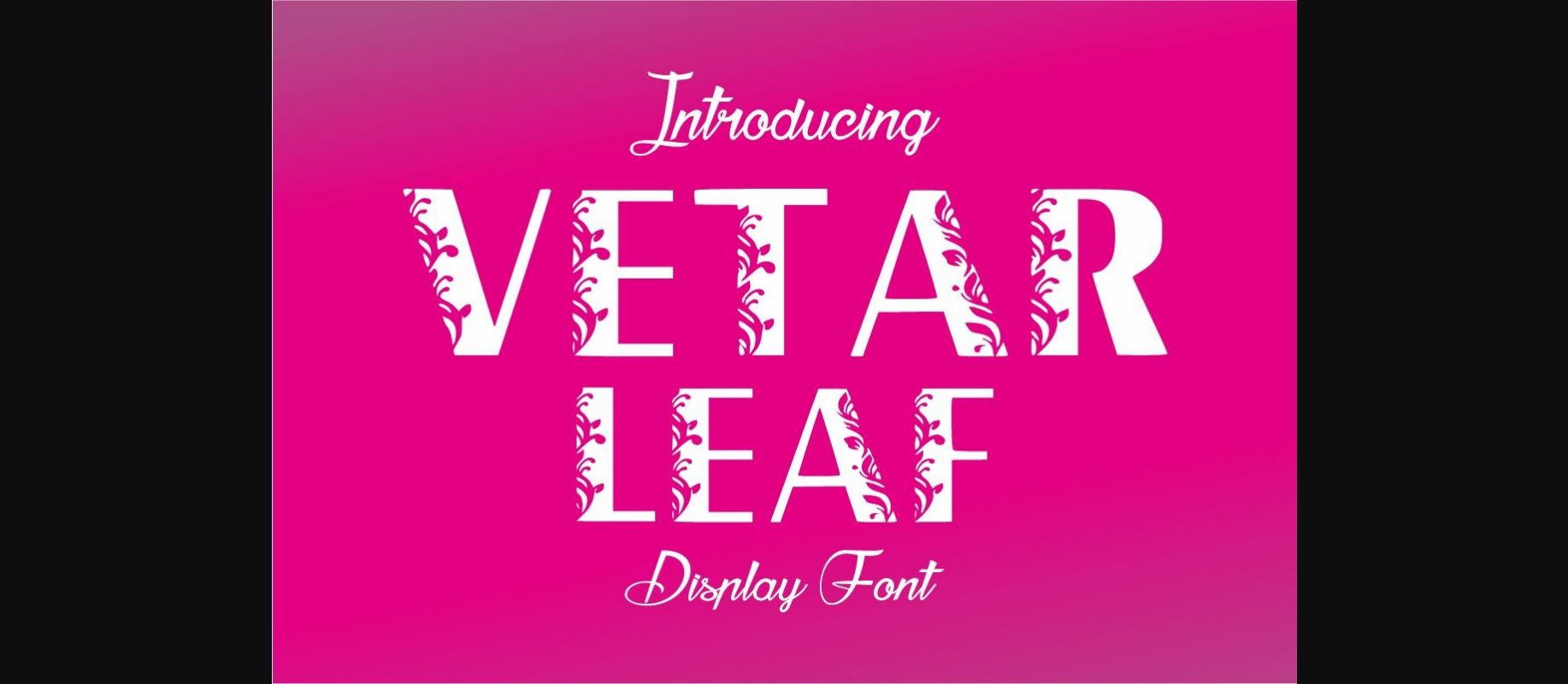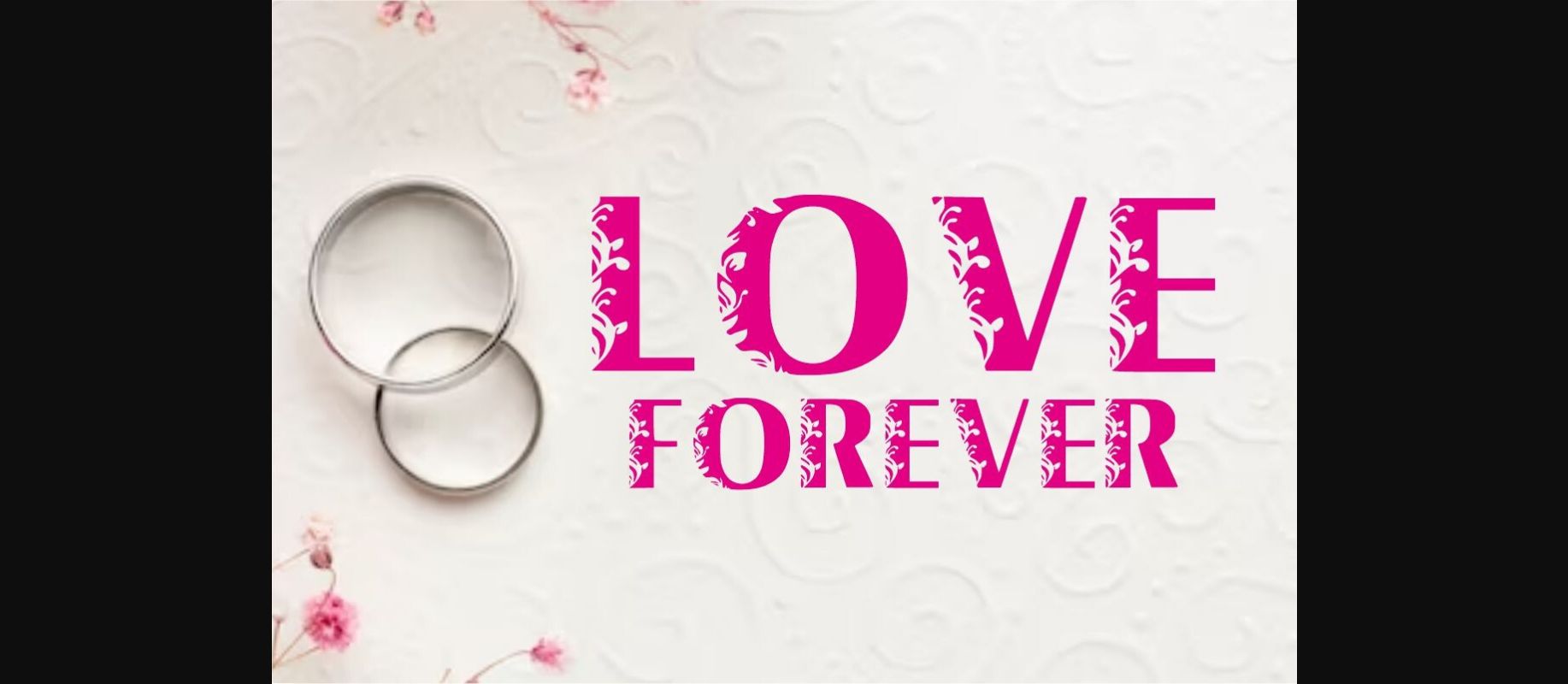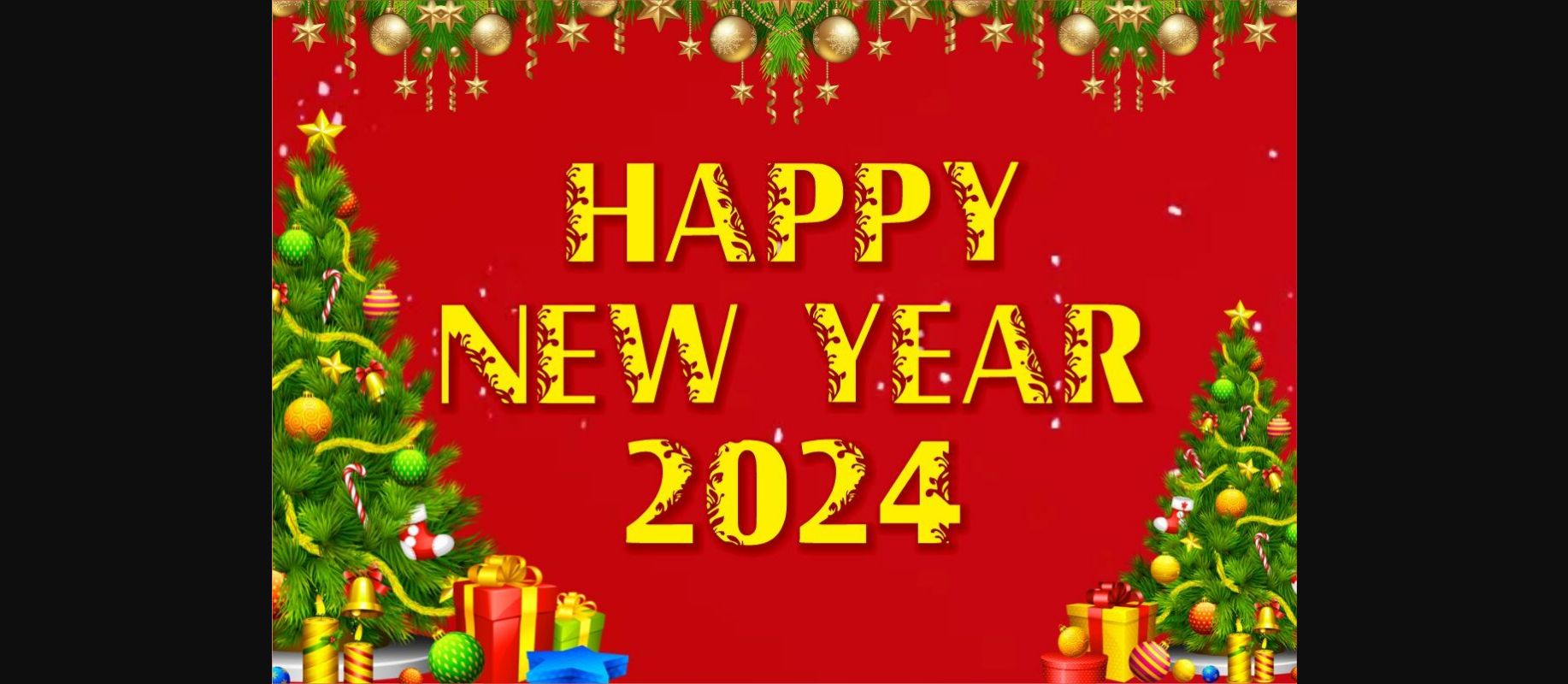
About Vetar Font
Vetar is a display font that has a floral and cute character. Its informal and casual style makes it a top choice for any creation. This will look cool on visual designs and works such as t-shirt packaging, birthdays, labels, logos, and others.